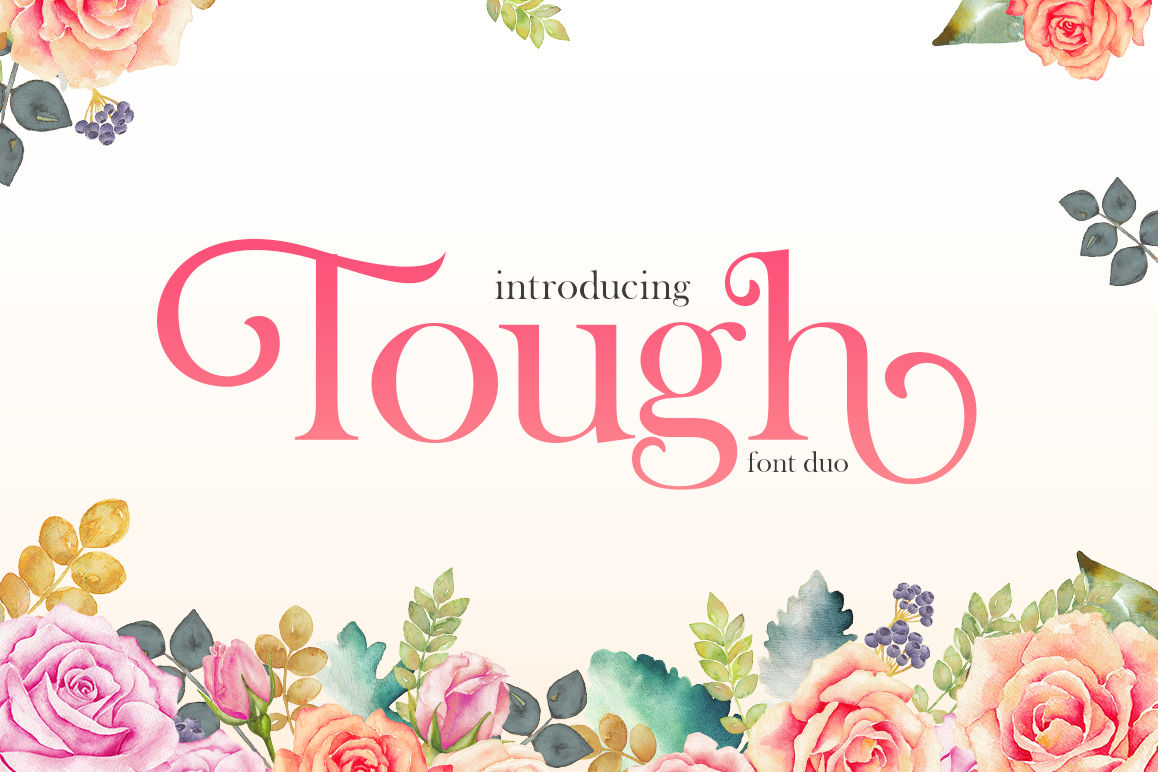
Introducing our classy new font duo - Tough. Use tough regular alone for large bodies of text or simplistic, modern logos and then compliment it with the tough fancy letters to create something a little more unique! We hope you enjoy!What's Included